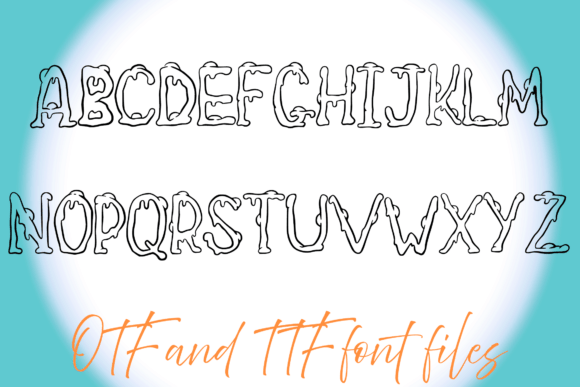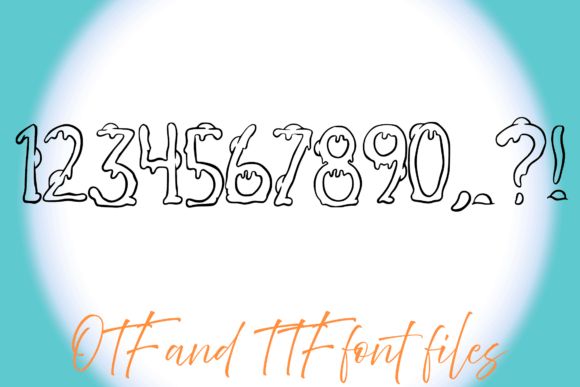
Fried Egg Font: The Yolk’s On Us for a Deliciously Quirky Design
Are you tired of the same old boring fonts? Do you want to crack open your design and add a dash of whimsy? Look no further than the Fried Egg Font, a playful display typeface that’s sure to make your project stand out. As its name suggests, this font is a quirky and delightful representation of a fried egg, complete with sunny-side-up illustrations baked into each character.
The Cracked Story Behind Fried Egg Font
Imagine a font that’s as fun to look at as it is to use. The Fried Egg Font is a one-of-a-kind typeface that’s been carefully crafted to bring a smile to your face. Each character is designed to resemble a fried egg, complete with a runny yolk and a delicate white border. The result is a font that’s equal parts playful, humorous, and eye-catching.
Perfect for Foodies and Designers Alike
So, who is the Fried Egg Font for? The answer is simple: anyone looking to add a dash of personality to their design. This font is a perfect match for:
- Food branding: Add a touch of whimsy to your restaurant’s logo or packaging with a font that’s sure to make customers smile.
- Restaurant menus: Stand out from the competition with a menu that’s as fun to read as it is to eat.
- Children’s projects: Bring a touch of playfulness to your kid-friendly designs with a font that’s sure to delight.
- Any design that needs a big bite of humor and creativity: Whether you’re designing a poster, flyer, or social media graphic, the Fried Egg Font is sure to crack open your design and add a dash of personality.
Key Features of Fried Egg Font
So, what makes the Fried Egg Font so special? Here are just a few of its key features:
- Quirky and playful design: Each character is carefully crafted to resemble a fried egg, complete with a runny yolk and delicate white border.
- Sunny-side-up illustrations: Each character features a sunny-side-up egg illustration, adding an extra touch of whimsy to your design.
- Display typeface: The Fried Egg Font is designed to make a statement, making it perfect for headlines, titles, and other display text.
- Easy to read: Despite its playful design, the Fried Egg Font is surprisingly easy to read, making it perfect for use in a variety of contexts.
Tips for Using Fried Egg Font
So, how can you get the most out of the Fried Egg Font? Here are a few tips:
- Use it sparingly: While the Fried Egg Font is sure to add a dash of personality to your design, it’s best used sparingly. Try using it for headlines or titles, and pairing it with a more traditional font for body text.
- Experiment with colors: The Fried Egg Font looks great in a variety of colors, from bright and bold to pastel and soft. Experiment with different colors to find the perfect look for your design.
- Pair it with other playful fonts: The Fried Egg Font is a natural match for other playful fonts, such as Comic Sans or Papyrus. Try pairing it with one of these fonts for a look that’s truly unique.
In conclusion, the Fried Egg Font is a quirky and playful display typeface that’s sure to add a dash of personality to your design. With its sunny-side-up egg illustrations and gooey, melty design, this font is perfect for food branding, restaurant menus, children’s projects, and any design that needs a big bite of humor and creativity. So why settle for a boring, traditional font when you can crack open your design with the Fried Egg Font?